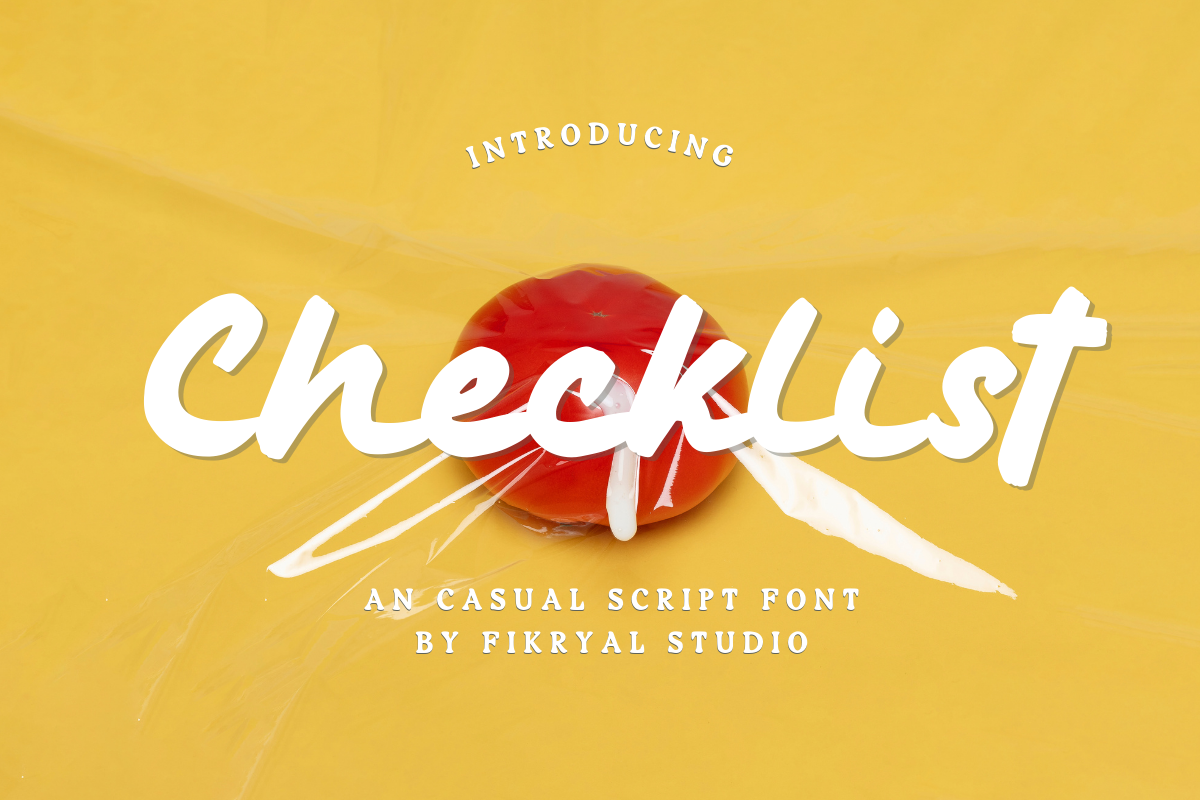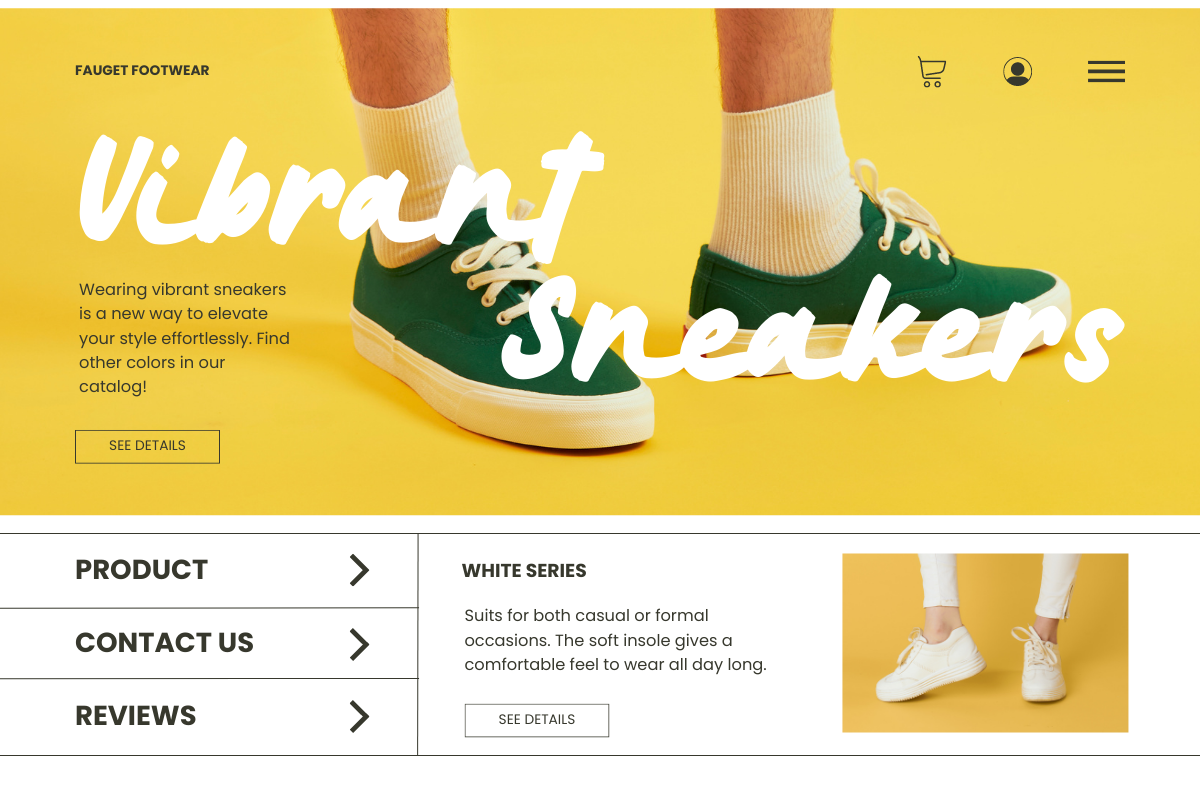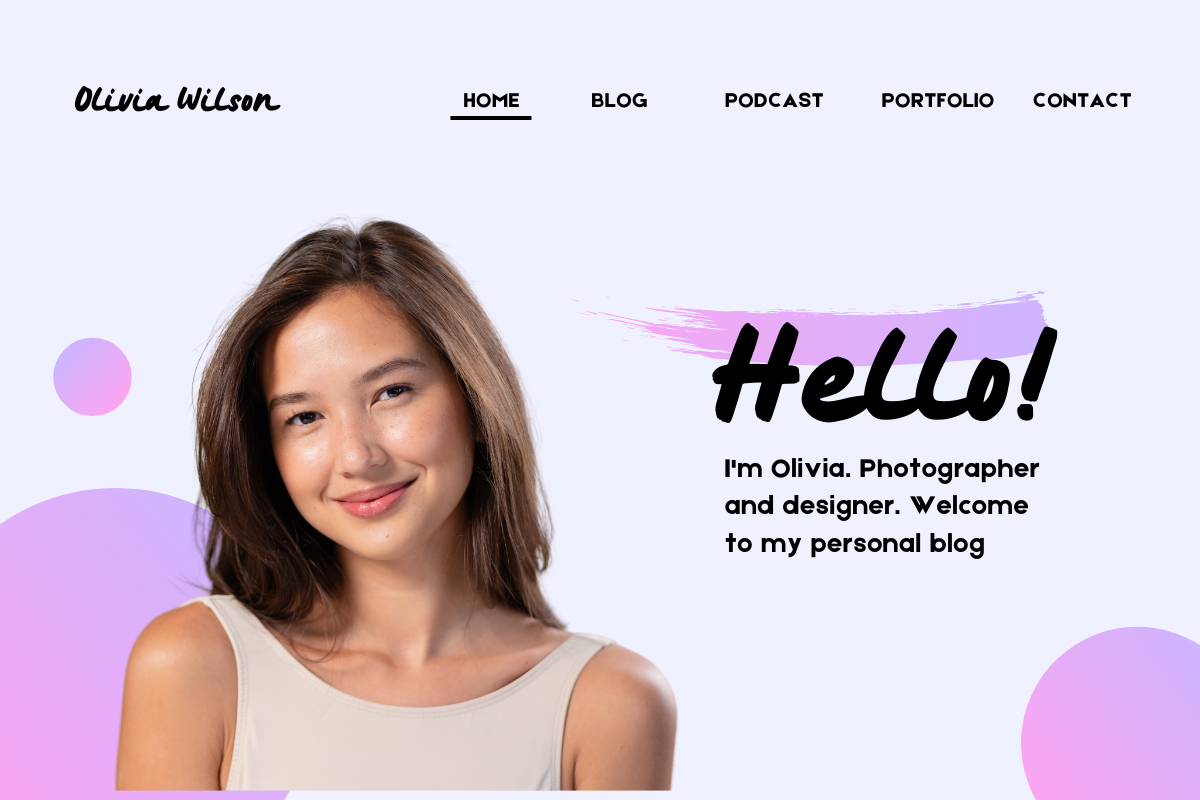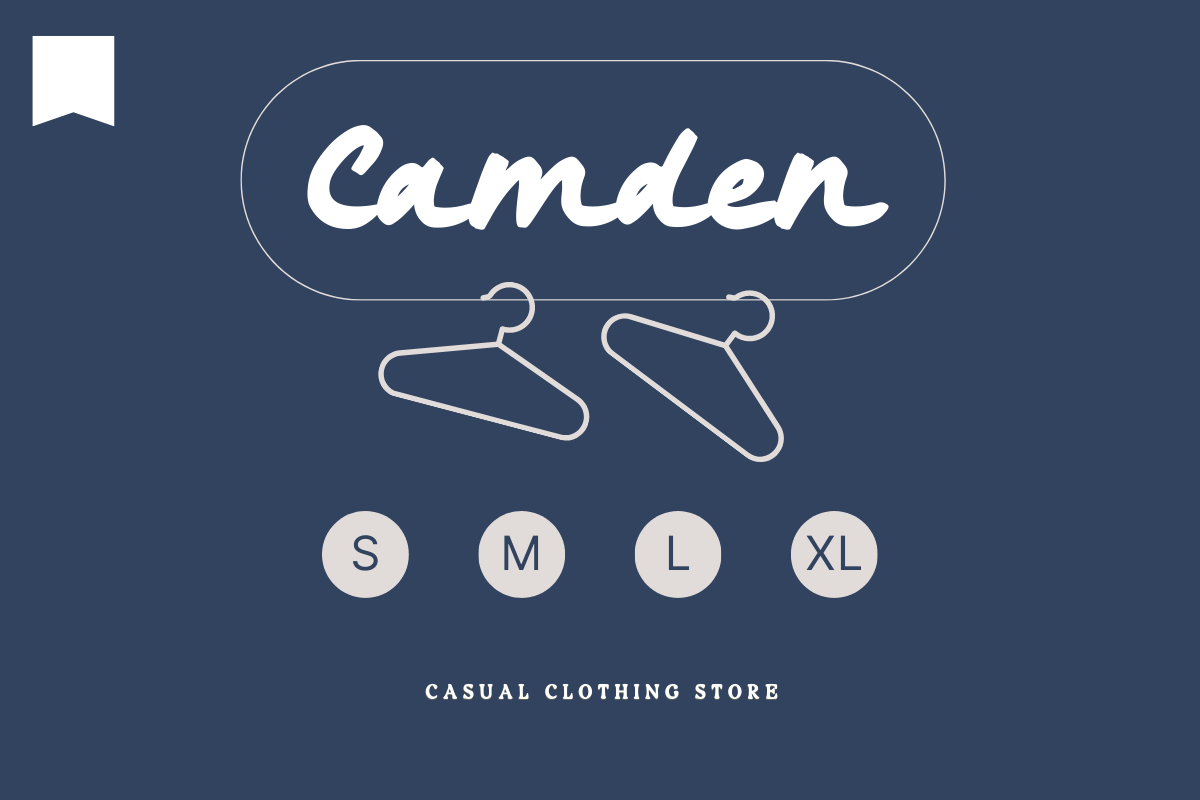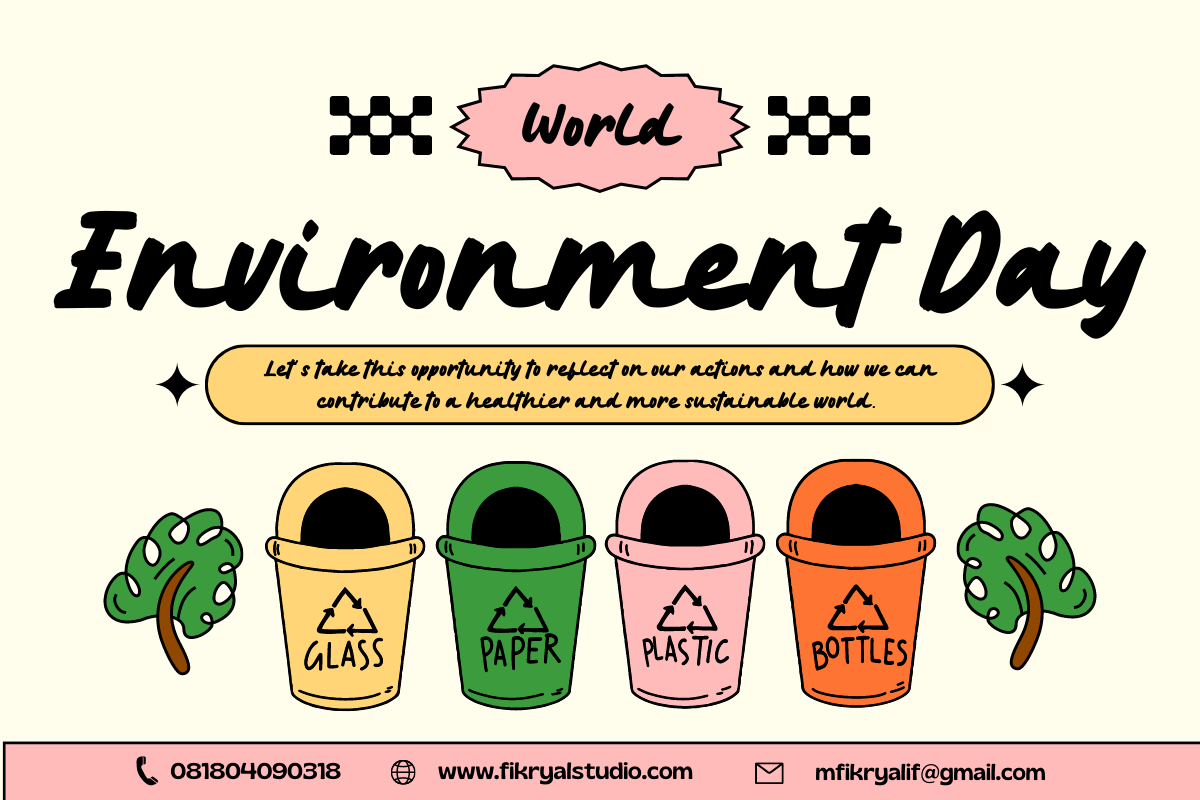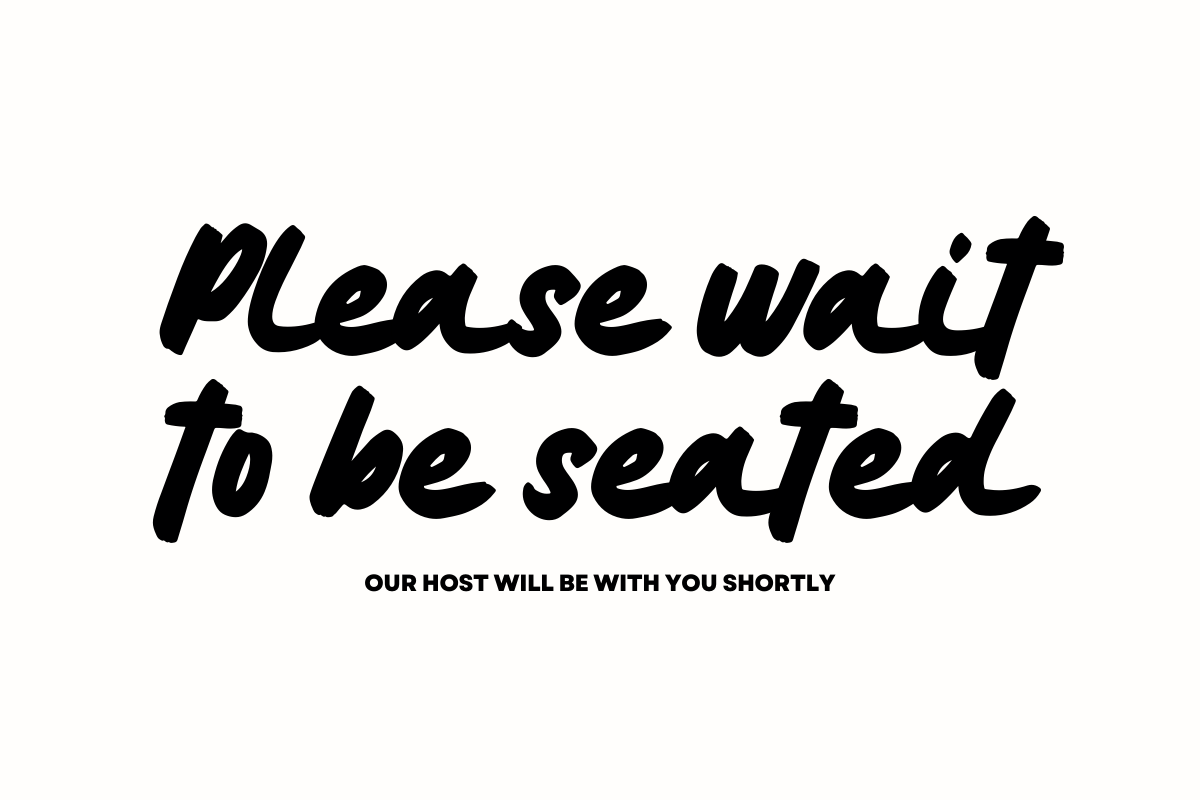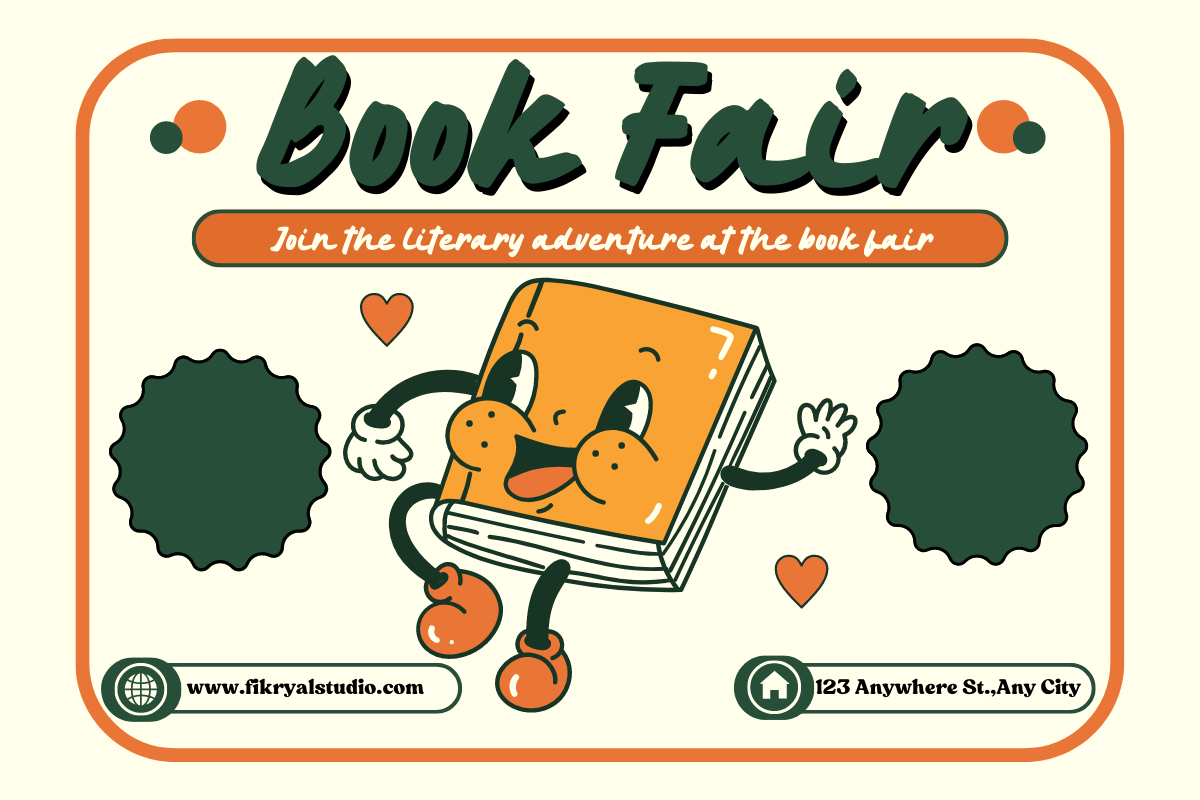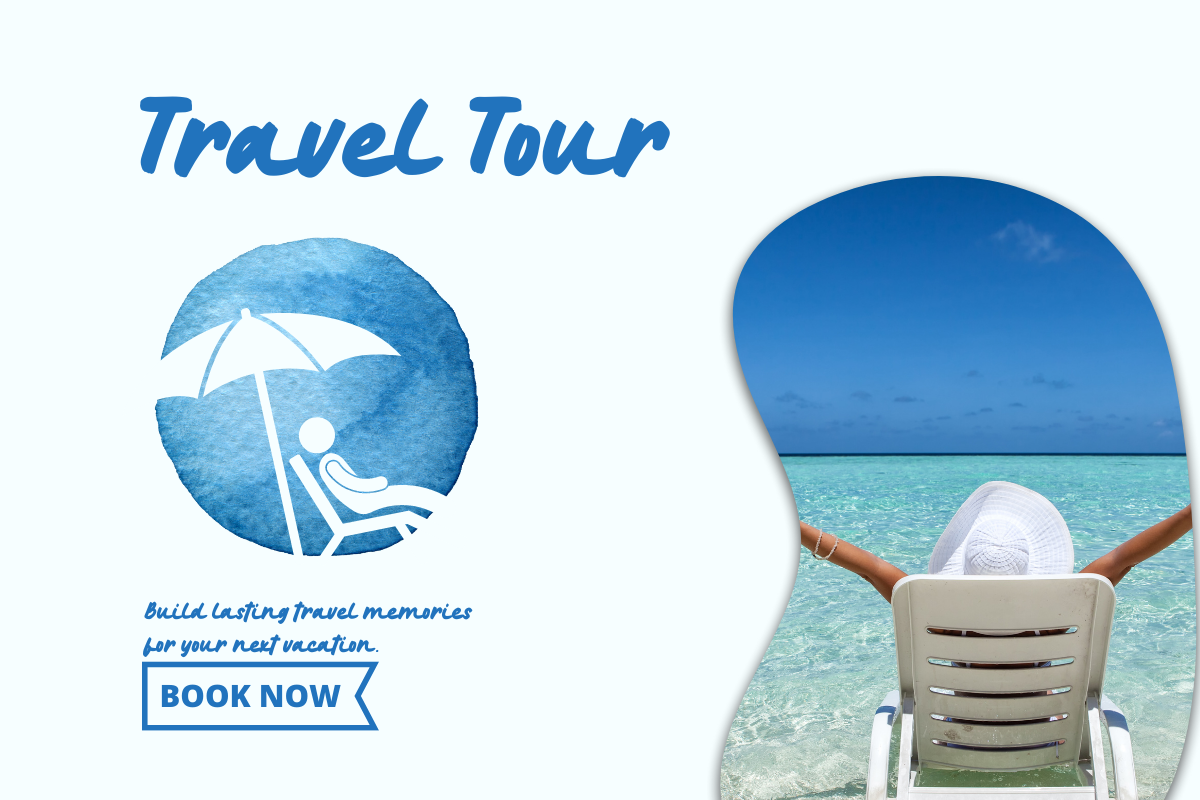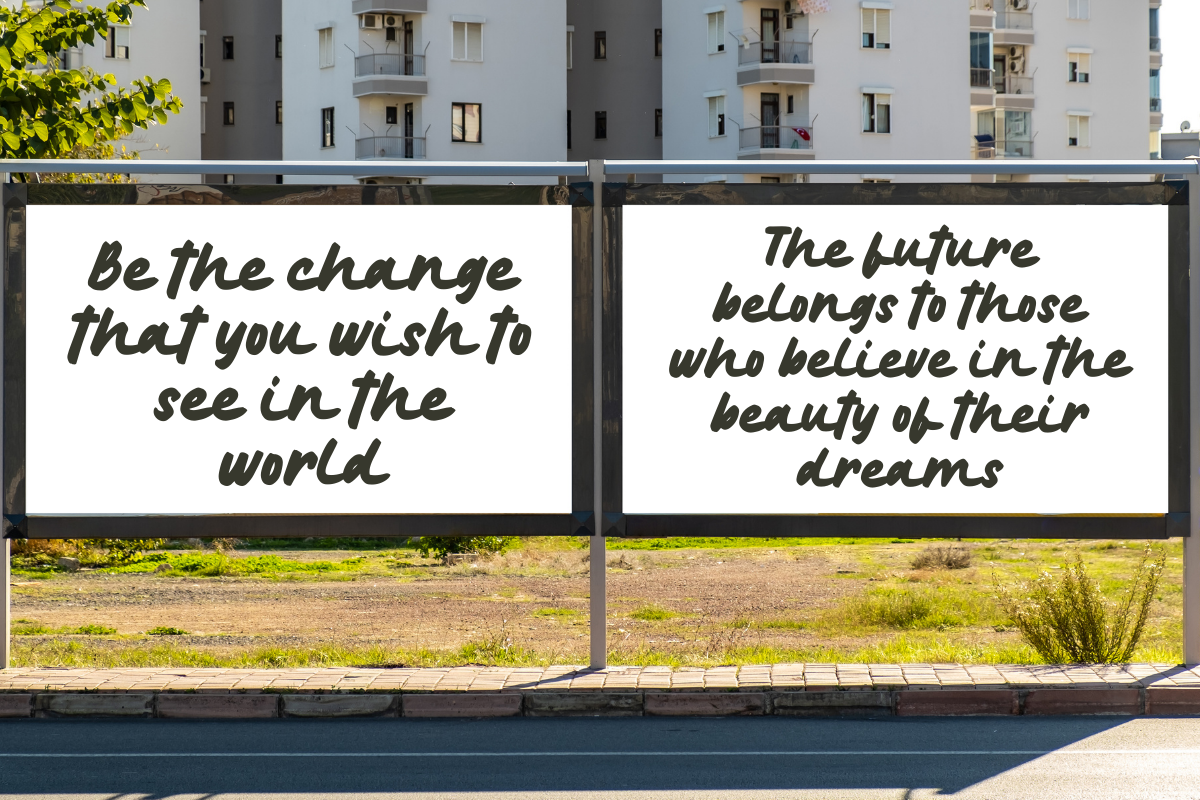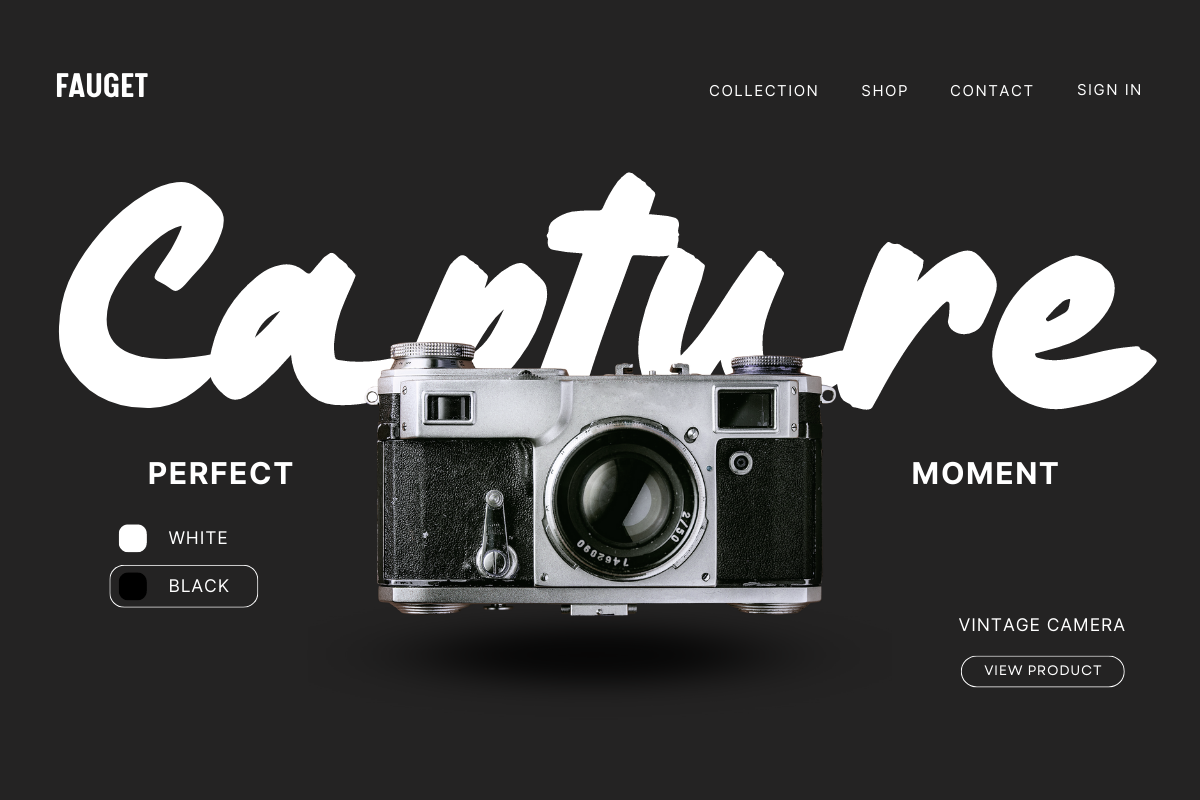
Checklist – An Casual Script Font
Checklist is a captivating and eccentric casual script font. Created with artistic flair and cheerfulness, this font has the ability to convey a relaxed and gentle feel in each character.
With its uniqueness and beauty, Checklist is suitable for various design purposes that aim to showcase a personal touch and a casual impression. This font is perfect for design projects such as greeting cards, logo designs, invitations, merchandise, and other creative elements that require a casual script touch.
Checklist comes with a wide range of characters, including uppercase and lowercase letters, as well as complete symbols and numbers. This gives you the flexibility to combine and express your creative ideas more freely.